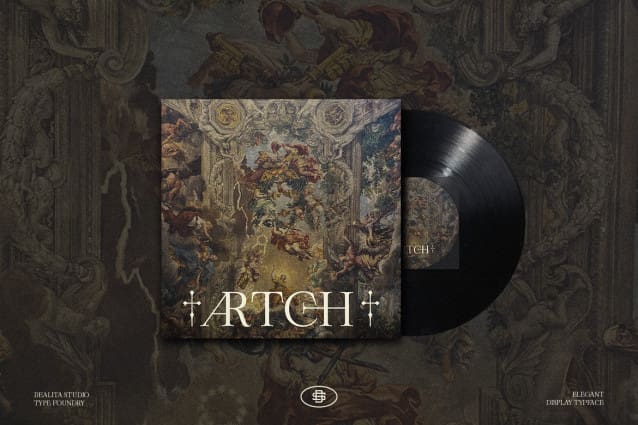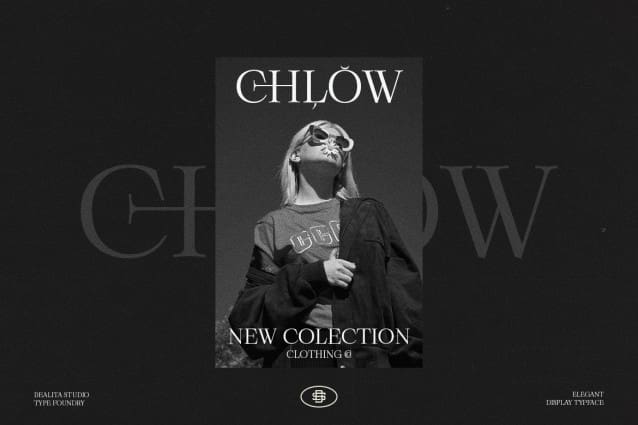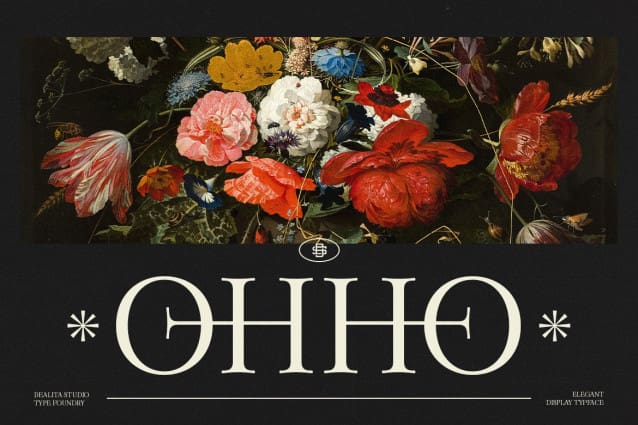
Ohho Font
Ohho Font a form of Elegant Serif is a fashionable and modern elegant serif font with some sexy stylish extras. perfectly made to be applied especially in logos, and the other various formal forms such as invitations, labels, logos, magazines, books, greeting/wedding cards, packaging, fashion, makeup, stationery, novels, labels, or any type of advertising purpose.